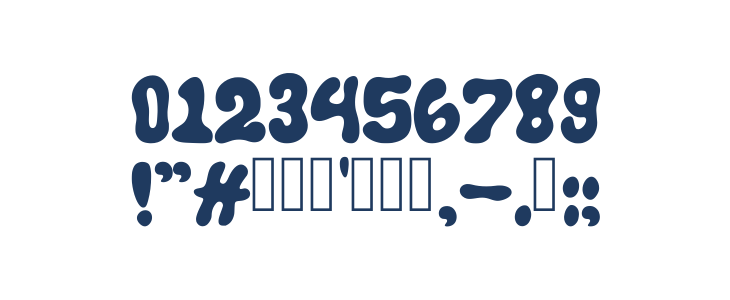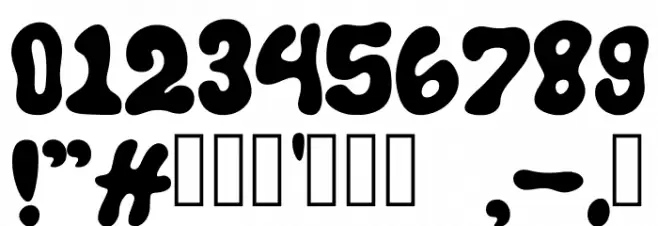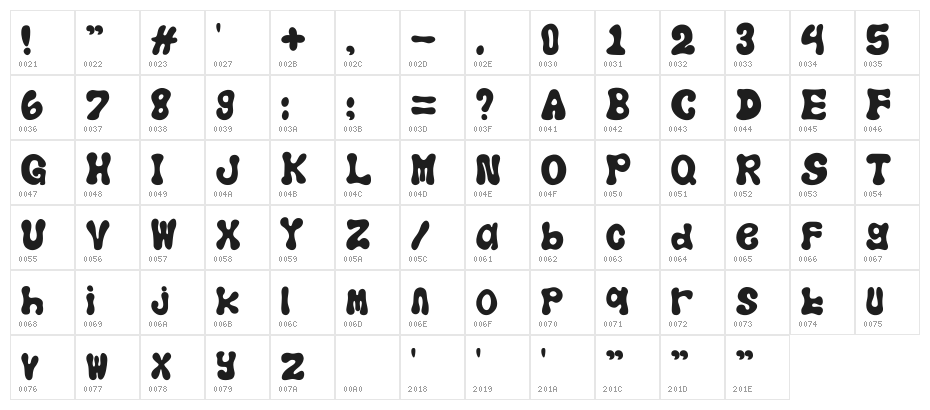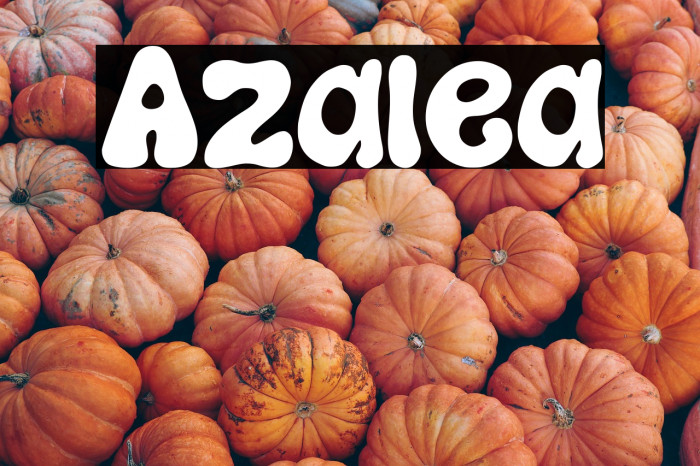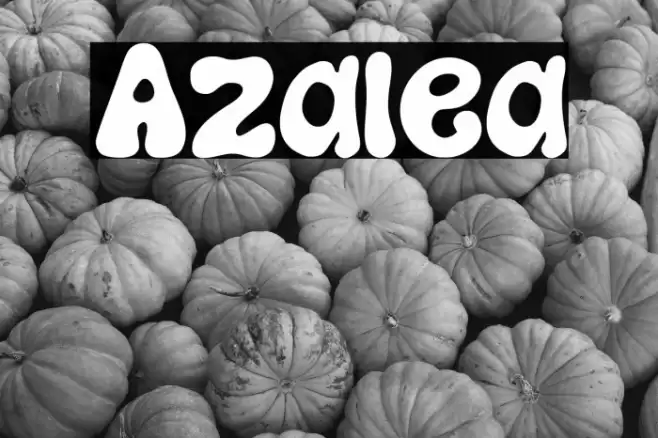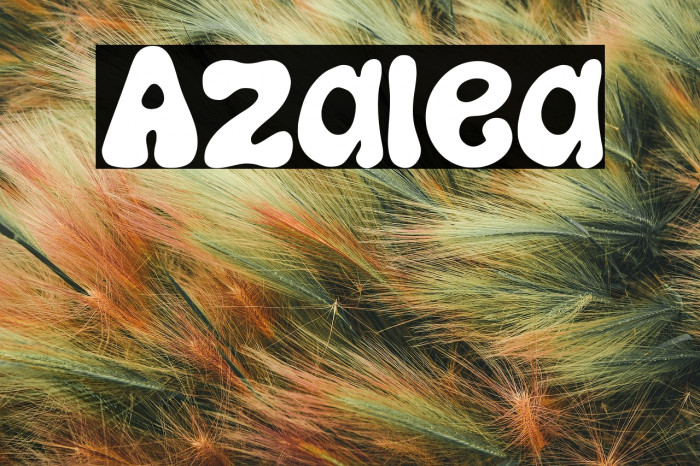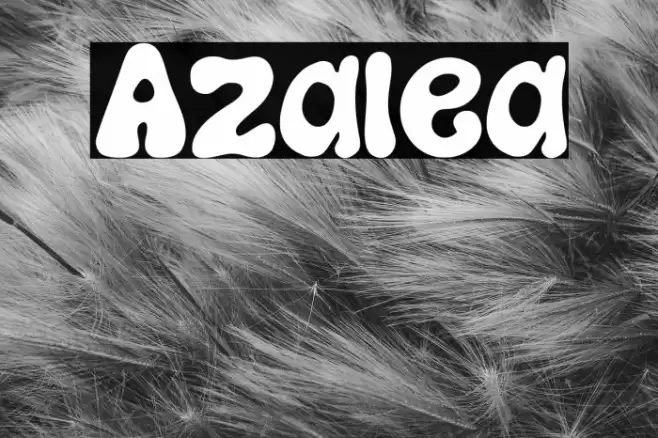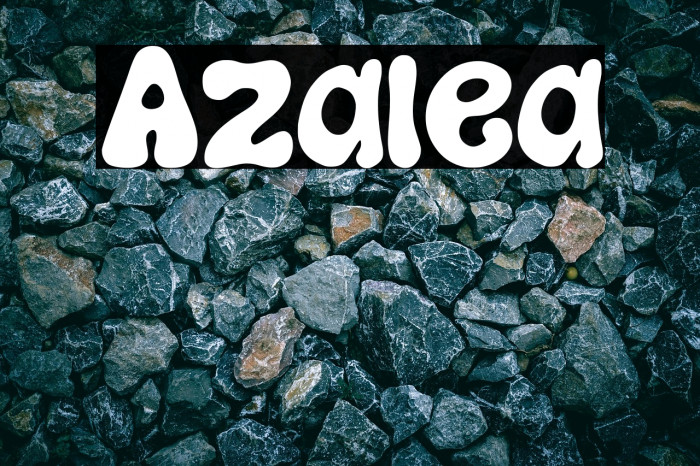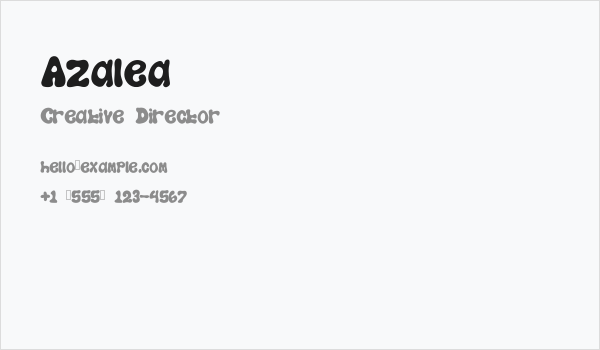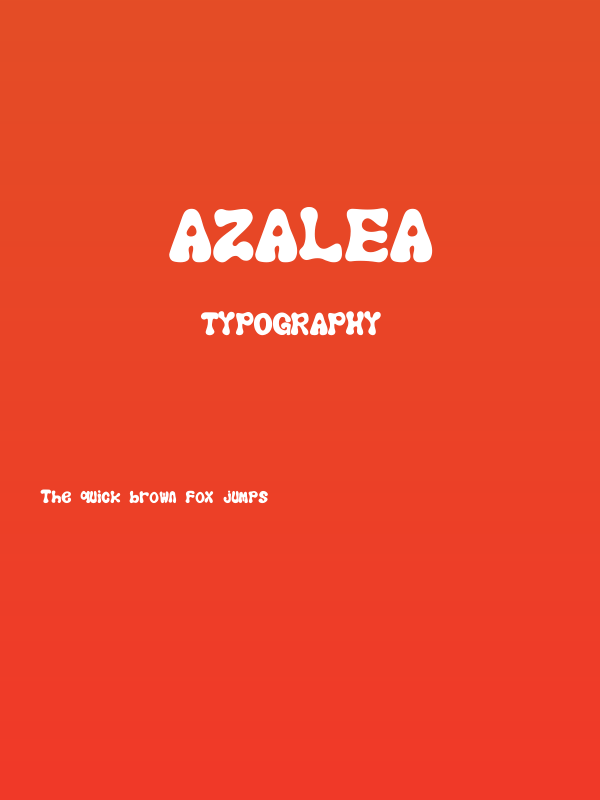
Azalea Font
Azalea Description
This font features a bold, playful style with thick, rounded characters that give it a bubbly and friendly appearance. The letters are highly stylized with a unique, almost cartoonish quality, making them stand out with their exaggerated curves and soft edges. The font maintains a consistent weight throughout, providing a cohesive look across both uppercase and lowercase letters. The numbers and special characters follow the same design principles, ensuring uniformity. Its whimsical nature makes it ideal for creative and informal projects.